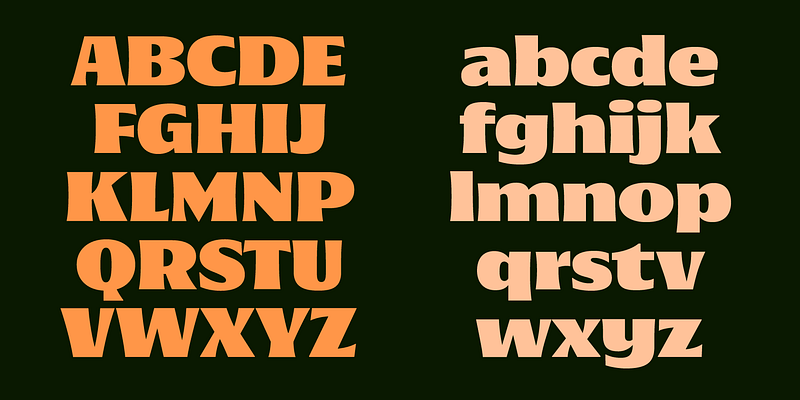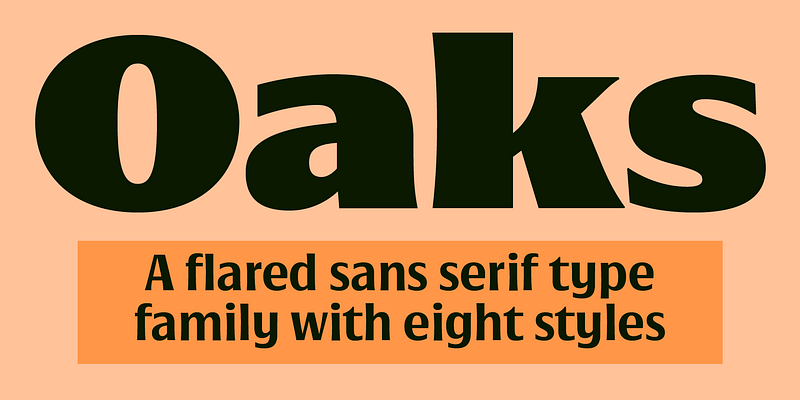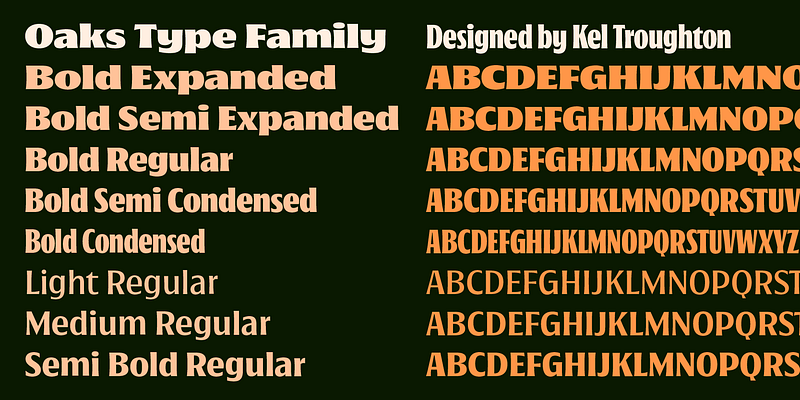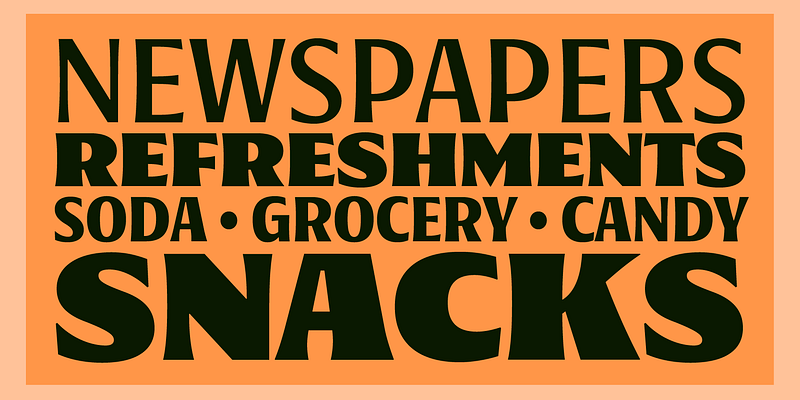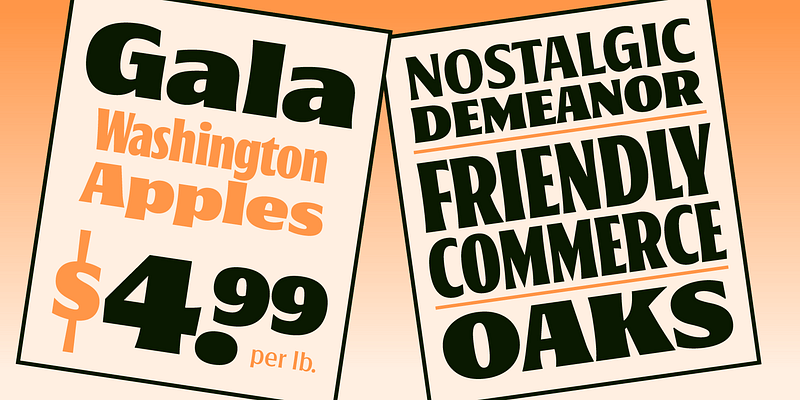
“Oaks is a display typeface with a friendly attitude and distinctive character. Originally developed during a school project at Type@Cooper West, it has evolved to include additional widths, accented glyphs, and refined letterforms. The design draws from sign painting traditions of the late 1800s, with particular influence from showcard lettering masters like Ross F. George and E. C. Matthews. The characteristic stem flares and overall aesthetic are tailored for vintage wall signs—the kind you’d find painted on the side of an old brick building. Oaks was born from a desire to create a design toolkit that would feel at home on the small “country grocery stores I grew up visiting in Sonoma County, California.”